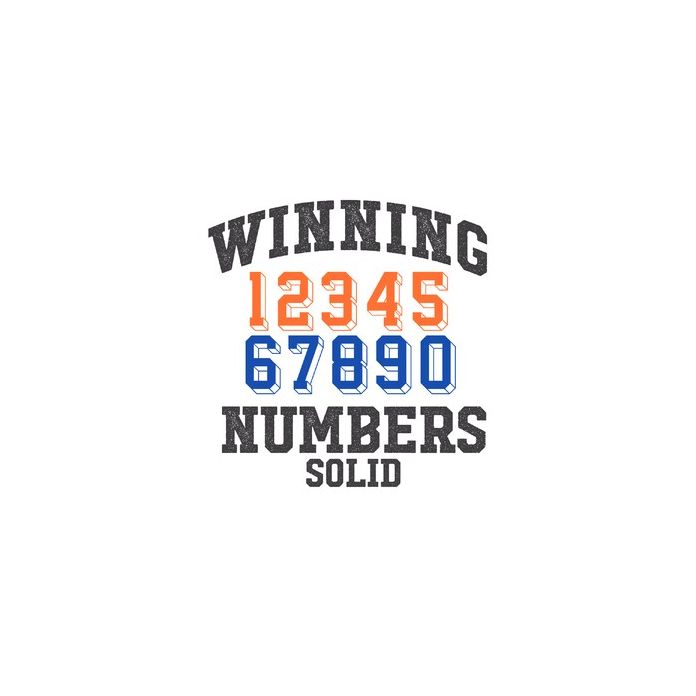
SG Winning Numbers Solid Sports Number Font
These retro numbers are perfect for jerseys! This font only includes numbers. For ideas and inspiration visit my website!